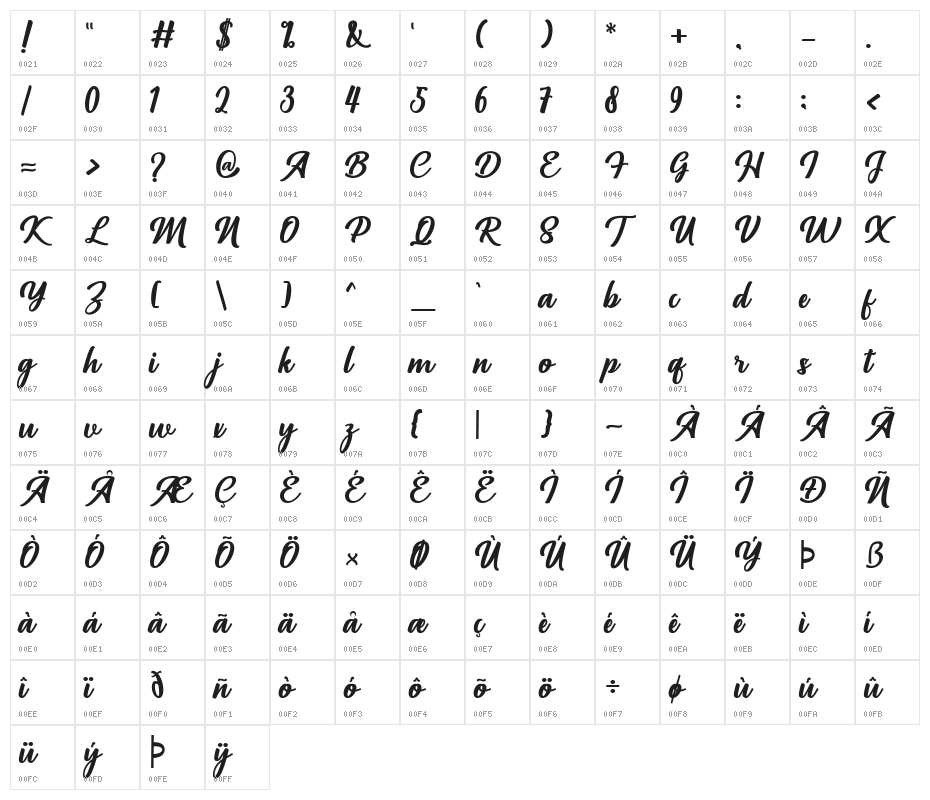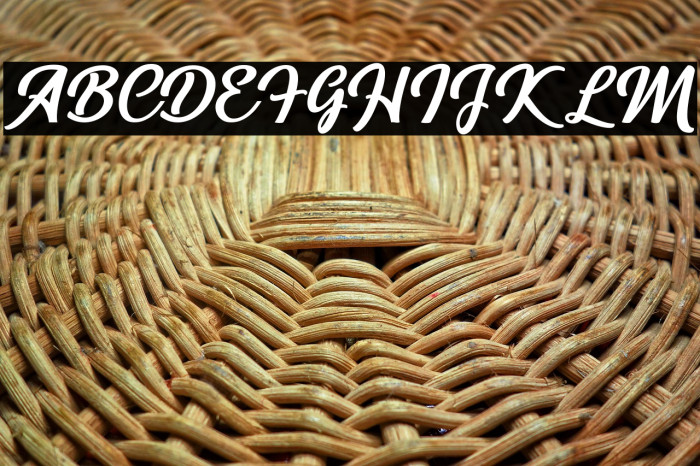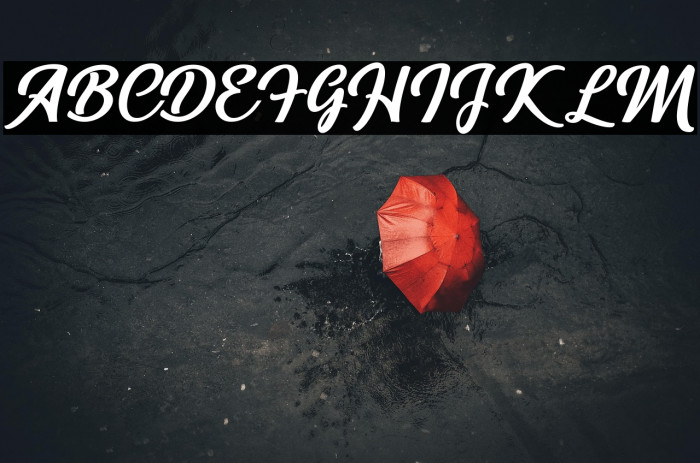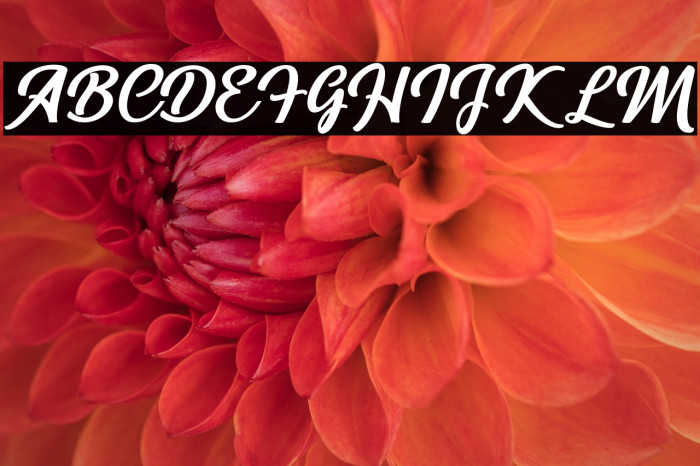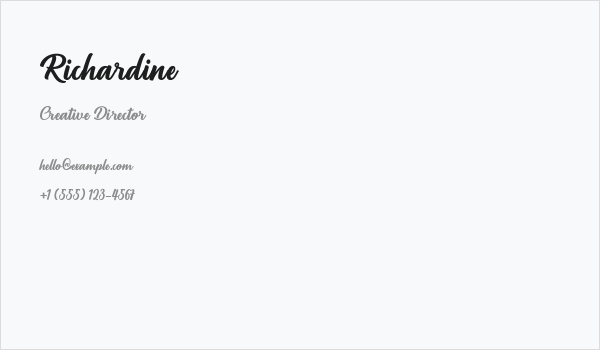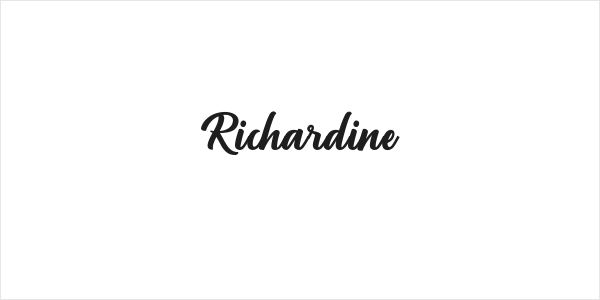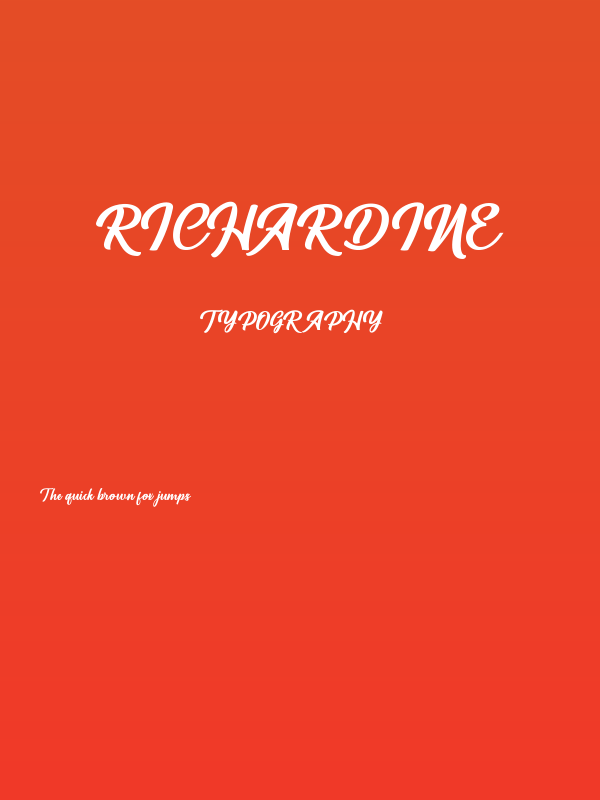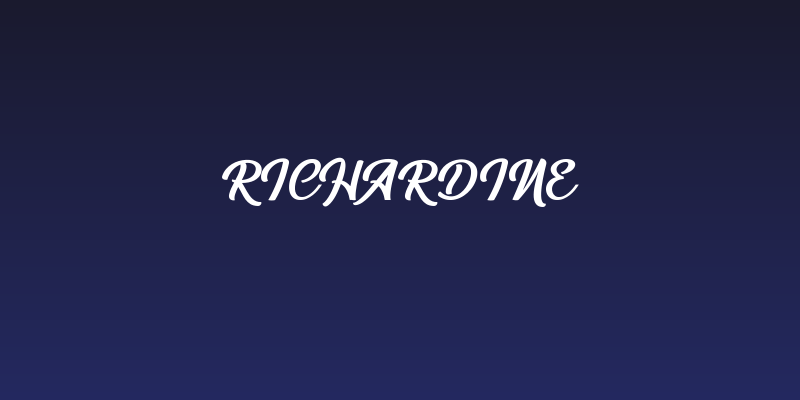
Richardine Font
Richardine Description
This font features a bold and flowing script style, characterized by its elegant and connected letterforms. The uppercase letters are slightly more formal with a consistent slant, while the lowercase letters exhibit a more casual and dynamic flow. The numerals are bold and maintain the script's fluidity, making them stand out. Special characters are integrated seamlessly, maintaining the overall aesthetic. The font's design is both stylish and versatile, suitable for a variety of creative applications.